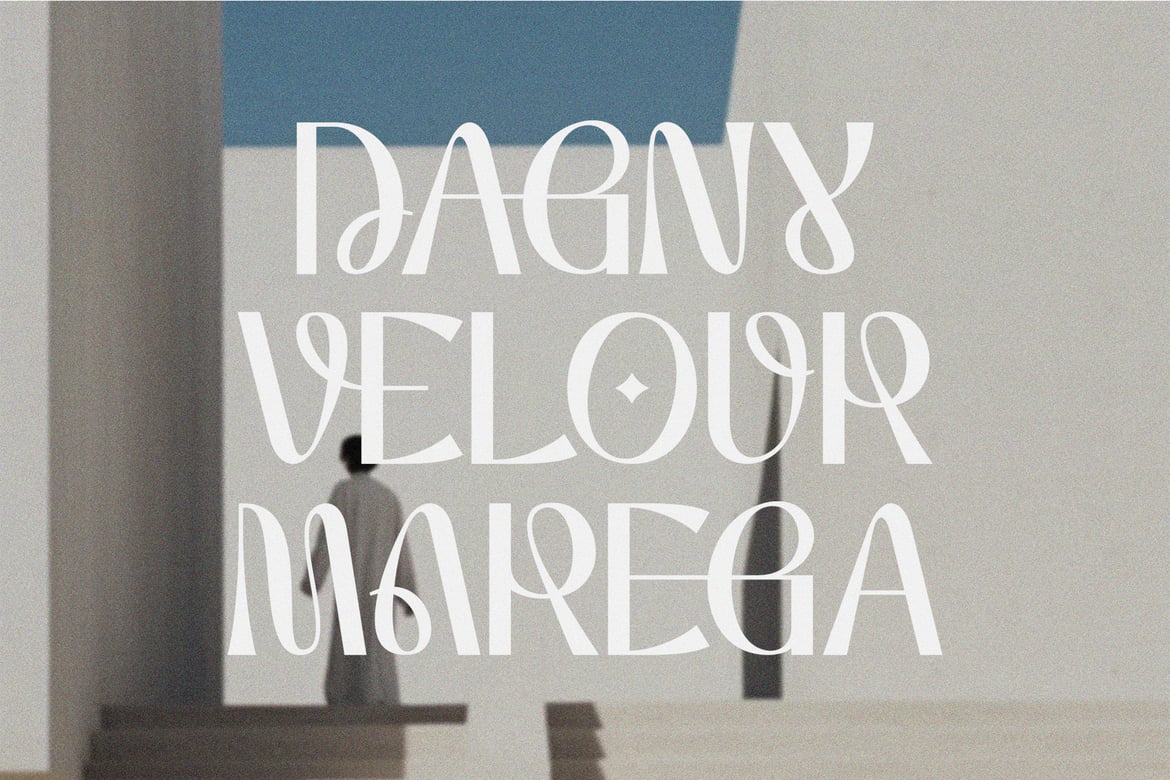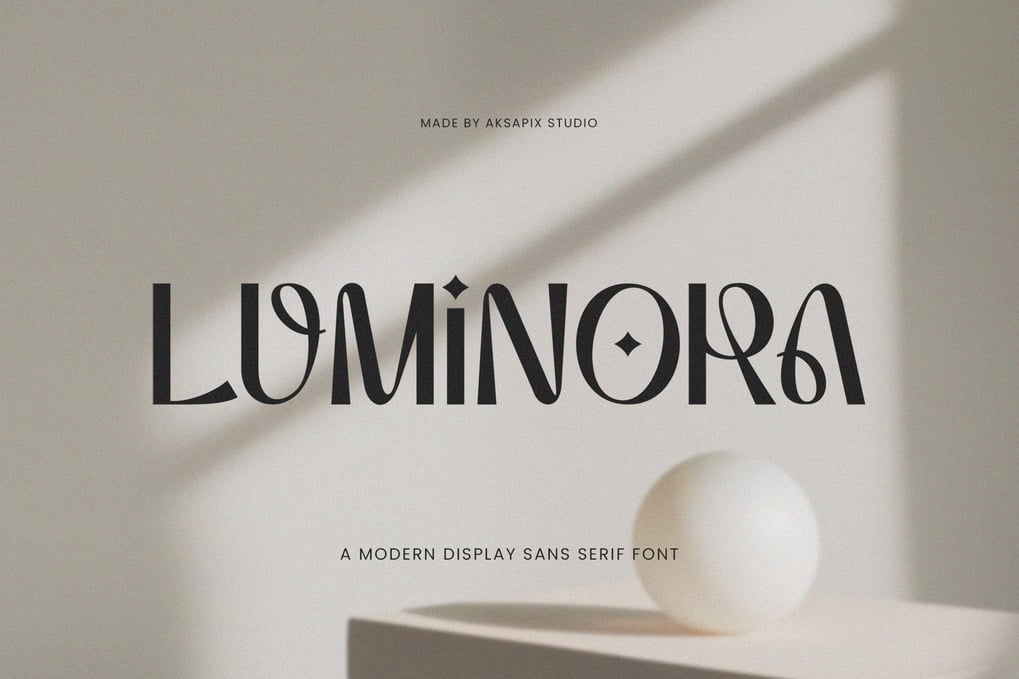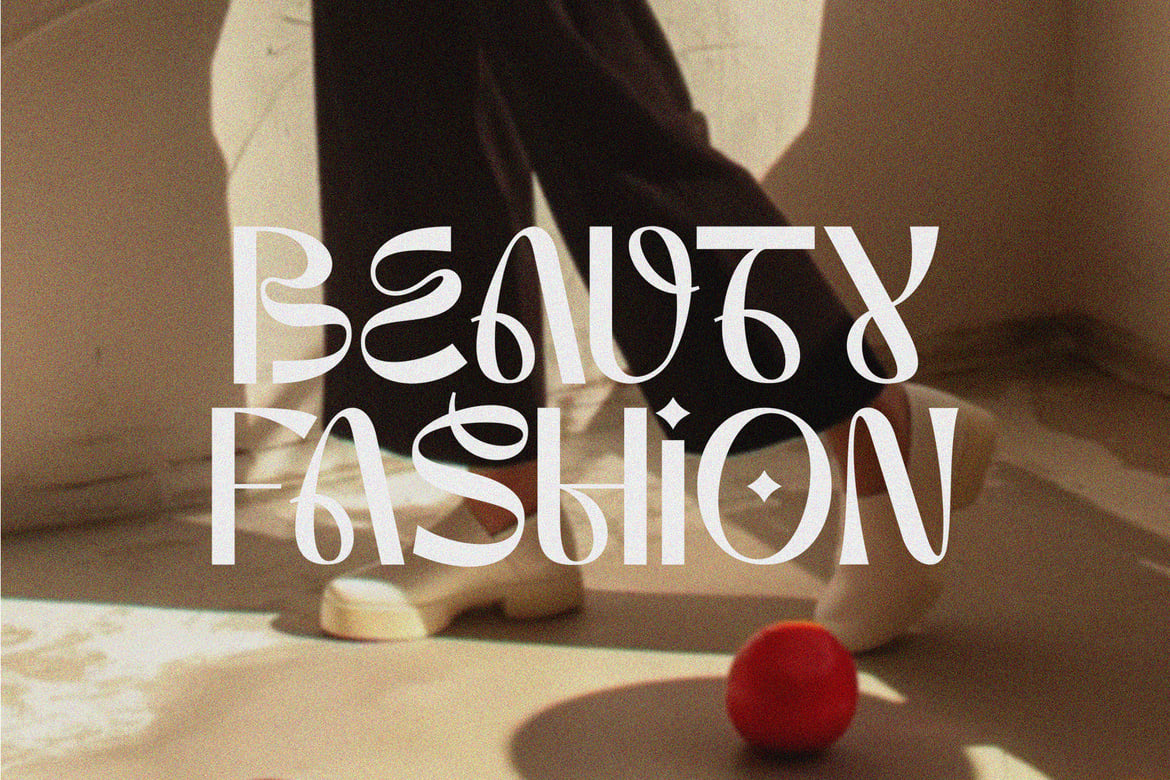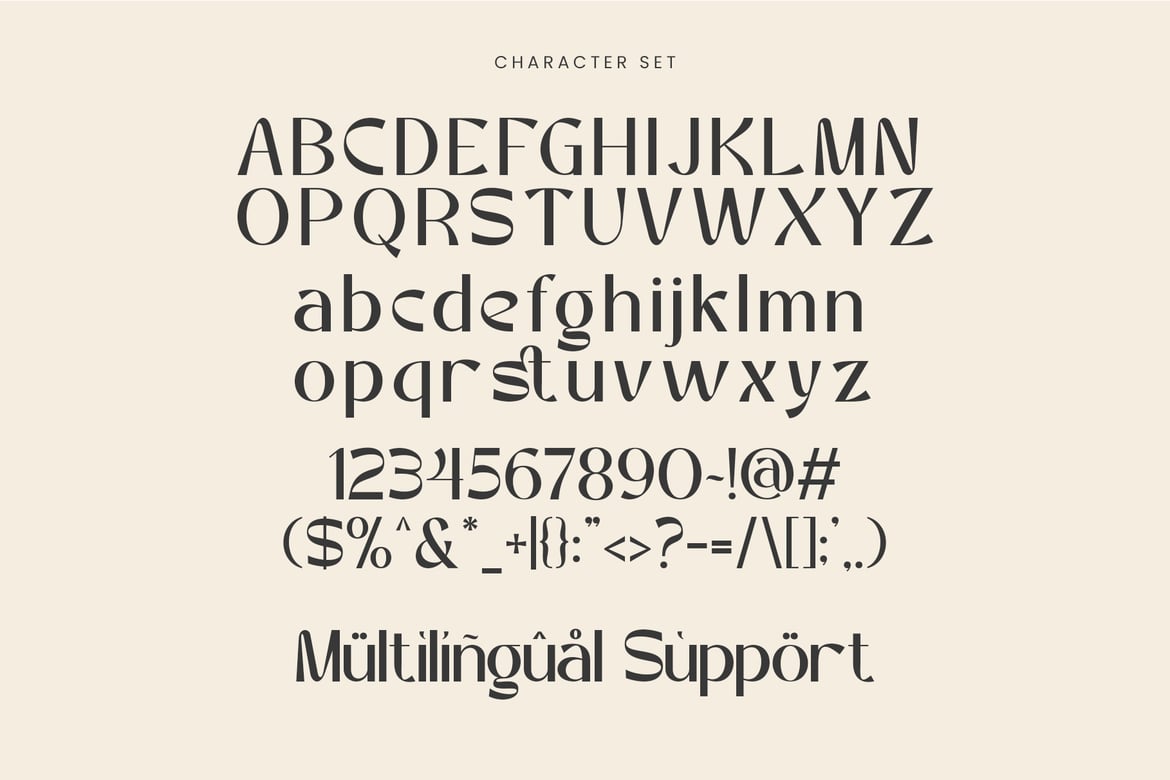
Luminora – Modern Display Sans Serif Font
* Uppercase & Lowercase
* Punctuation & Numbers
* Stylistic Alternates: Offers unique character variations for added creativity.
* Multilingual Support: Compatible with multiple languages for global accessibility.
* Clean and Modern Design: Ideal for a contemporary look in any design project.